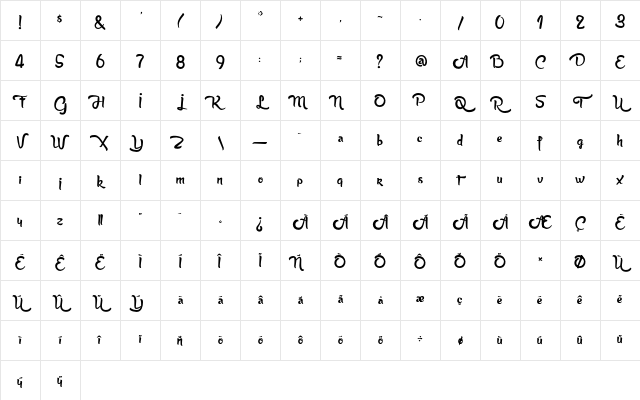
Anabelle Script Light Bold Free Font
Anabelle Script Light Bold
Foundry: M.K.V
Anabelle Script Light Family
Design Context for Anabelle Script Light
Anabelle Script Light flows with the natural rhythm of handwritten lettering, making it ideal for designs that call for warmth and personal expression. Its bold stroke weight gives it real presence on the page.
Font Pairing: Combine Anabelle Script Light with a simple geometric sans for maximum contrast - the tension between flowing curves and clean structure is a classic typographic pairing.
Pro Tip: Use Anabelle Script Light for short runs of text - names, titles, or taglines. Extended body copy in script faces tires the eye quickly.